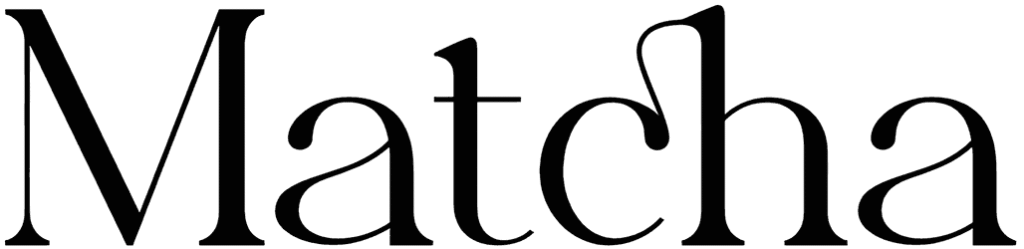
Matcha Font
Matcha font adds its lines of class and sophistication to any design by curving and swirling around each letter. This serif font has a timeless and unique beauty that can stand out in traditional and modern methods.
Whether in print or on the web, Matcha can bring a sense of elegance and power that will play an instrumental role in upping your design game and creating a stunning look in any piece of writing.